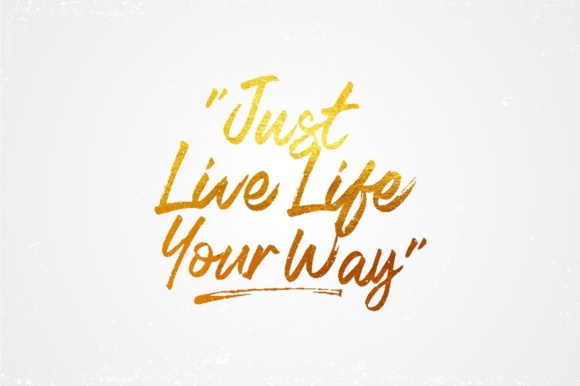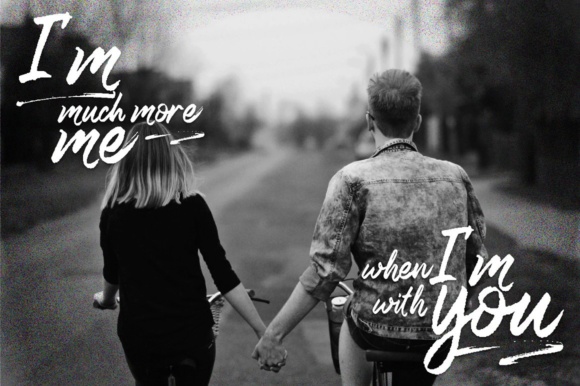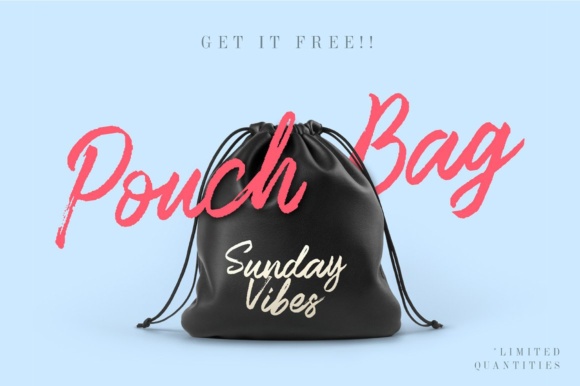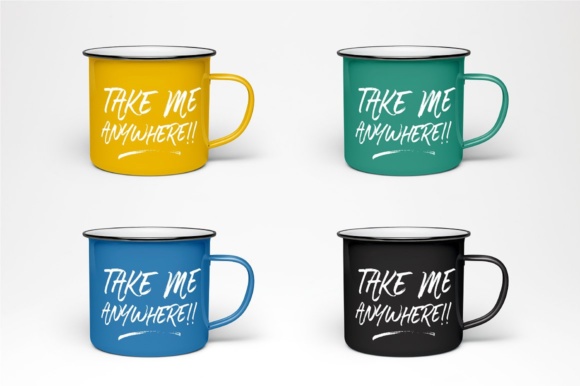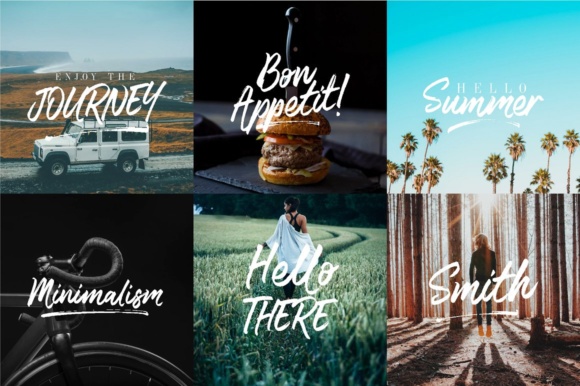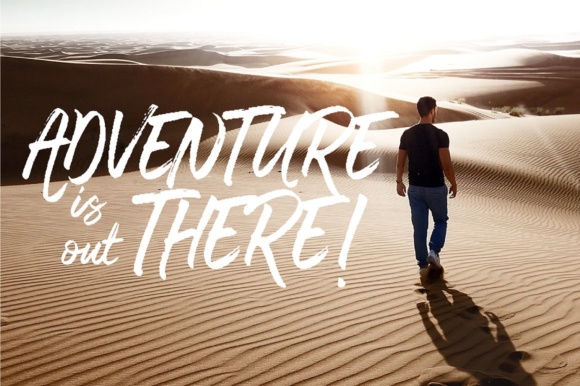
Introduction to Lismonia Font
Have you ever stared at a blank canvas, waiting for that perfect spark to ignite your creative project? As designers, we’ve all been there, searching for that elusive combination of style and substance to elevate our work. For me, that spark came in the form of the Lismonia Font – a stunning, casual handwritten brush font that brings a touch of personality to any design.
With its quick dry strokes and signature style, the Lismonia Font is a game-changer for designers looking to add a high-quality, free download to their design resource arsenal. Whether you’re crafting inspirational quotes, t-shirt graphics, or typography art, this versatile font is sure to deliver. And with its transparent background option, you can rest assured that your design will shine – no matter the background.
- Unique and stylish design, making it perfect for creative projects that require a touch of elegance and sophistication.
Honest Review: Lismonia Font
I recently had the opportunity to work with the Lismonia Font for a creative project and I must say, it was a game-changer. ✨ The font’s unique design and high quality made it perfect for adding a touch of sophistication to my design.
One of the things I love about the Lismonia Font is its versatility. It can be used for a wide range of creative projects, from print designs to digital applications. The font’s clean and modern design makes it easy to read and understand, even on a transparent background.
- High quality design that’s perfect for creative projects
- Can be used for a wide range of applications, including print and digital designs
- May not be suitable for very formal or traditional designs
- Can be quite bold, so use with caution on complex backgrounds
Overall, I’m thoroughly impressed with the Lismonia Font. It’s a fantastic design resource that’s perfect for creative projects. If you’re looking for a high-quality font to elevate your design, I highly recommend giving it a try.
Tips for Getting the Most Out of Lismonia Font
To get the most out of the Lismonia Font, use it in combination with other design elements, such as images or graphics. Experiment with different font sizes, styles, and colors to create a unique and eye-catching design. The Lismonia Font is also ideal for creating a cohesive brand identity.
The Lismonia Font is commonly used in creative projects, such as:
- Infographics and charts
- Logos and icons
- Presentation and reports
Alternatives to Lismonia Font
Montserrat is a high-quality sans-serif font that is perfect for creative projects requiring a modern and clean design. It is available for free download and is often used for headings and titles in digital designs. Montserrat is a great alternative to Lismonia Font for projects requiring a transparent background and a touch of sophistication.
Great Vibes is a beautiful script font that is ideal for creative projects requiring a personal and elegant touch. It is available for free download and is often used for headings and titles in digital designs. Great Vibes is a great alternative to Lismonia Font for projects requiring a high-quality design resource with a lot of flair.
Q: Can I use Lismonia Font with a transparent background?
Yes, Lismonia Font supports transparent backgrounds, making it ideal for creative projects that require a high level of design flexibility.
Q: Is Lismonia Font suitable for high-quality printing?
Lismonia Font is designed to produce high-quality results, even at large sizes. It’s an excellent choice for projects that require precise typography and attention to detail.